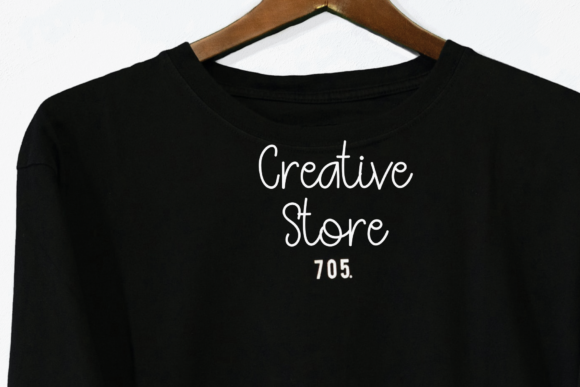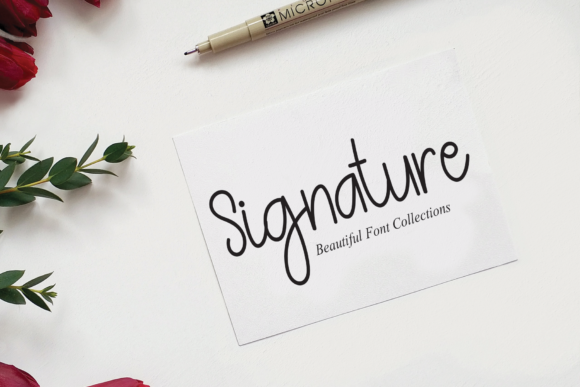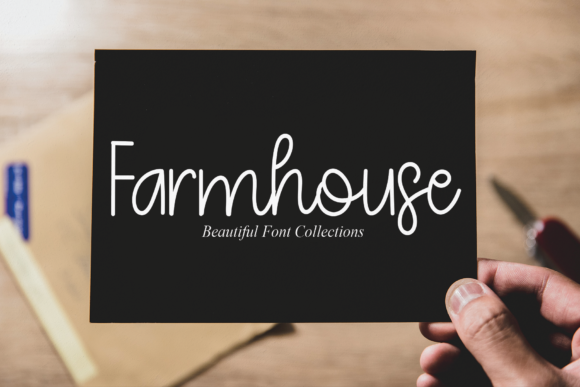
Moment Signature Font
Moment Signature is a delicate and fashionable script font. It is perfect for any branding project such as logos, t-shirt printing, creative products, and more. It will look extraordinary in a variety of contexts.